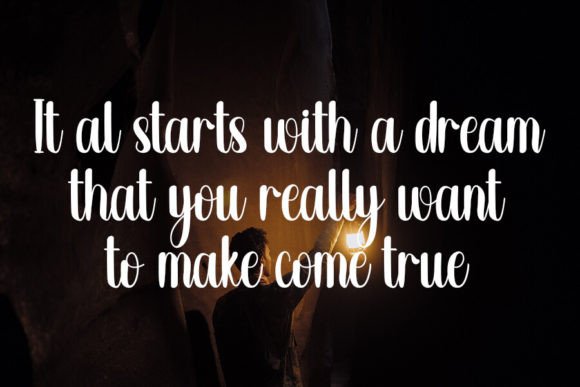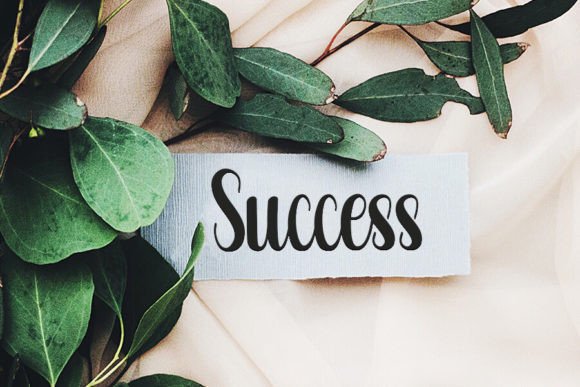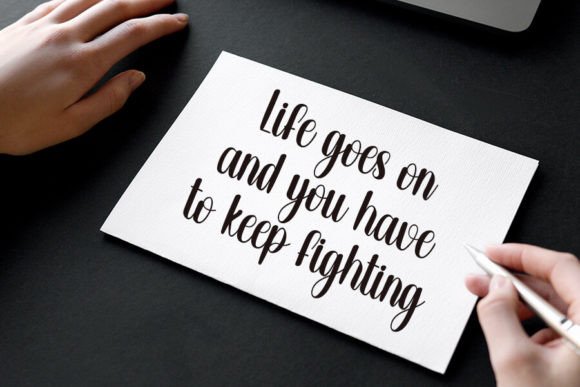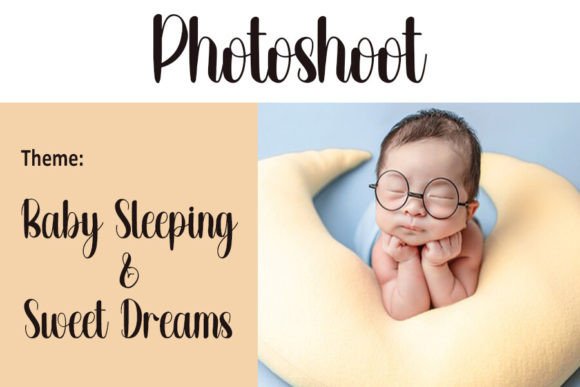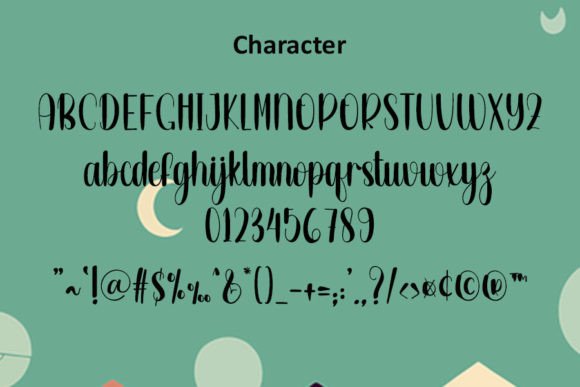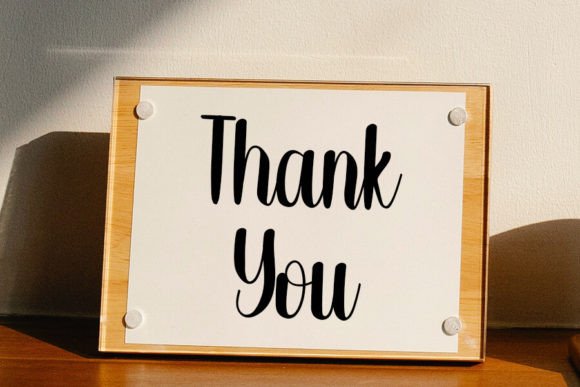
Introducing Good Dreams Font: Elevate Your Designs with Timeless Elegance
In the world of typography, a good font can make all the difference in elevating your designs from ordinary to extraordinary. For designers and crafters seeking a stylish and contemporary handwritten font, Good Dreams Font is an exceptional choice. Inspired by timeless classic calligraphy, Good Dreams boasts a balanced and varied aesthetic that adds an impeccable touch to any project.
The Inspiration Behind Good Dreams Font
Good Dreams Font draws its inspiration from the elegance of classic calligraphy, reimagined with a modern twist. This stylish handwritten font is crafted to bring a sense of sophistication and refinement to your designs, whether you’re working on a branding project, crafting beautiful stationery, or creating engaging digital content.
Key Features of Good Dreams Font
- Contemporary Atmosphere: Good Dreams Font embodies a contemporary atmosphere that feels fresh and current, making it perfect for designers looking for a modern aesthetic.
- Impeccable Form: The font’s design focuses on impeccable form, ensuring that every letter and glyph contributes to a cohesive and beautiful visual experience.
- PUA Encoded: Being PUA (Private Use Area) encoded, Good Dreams Font offers easy access to a wide range of glyphs and ligatures, allowing for extensive creative flexibility.
- Balanced and Varied: The font is carefully crafted to be balanced and varied, providing designers with a versatile tool that can adapt to different design needs.
Enhance Your Projects with Good Dreams Font
Good Dreams Font is designed to enhance the beauty of your projects. Its elegant and contemporary design makes it suitable for a variety of applications, including:
- Branding: Create memorable and impactful brand identities with a font that communicates sophistication and elegance.
- Stationery: Elevate your stationery designs, such as business cards, letterheads, and invitations, with a touch of class and refinement.
- Digital Content: Enhance your digital content, including websites, blogs, and social media graphics, with a stylish and contemporary font that captures attention.
- Crafting and DIY Projects: For crafters and DIY enthusiasts, Good Dreams Font offers endless possibilities for creating beautiful handmade projects, such as custom signs, banners, and personalized gifts.
Why Choose Good Dreams Font?
Choosing Good Dreams Font for your design projects comes with several advantages:
- Unique Aesthetic: The font’s unique blend of classic inspiration and modern design ensures your projects stand out.
- Ease of Use: With PUA encoding, accessing and using the font’s extensive features is straightforward.
- Versatility: Good Dreams Font’s balanced and varied design makes it adaptable to a wide range of projects and design contexts.
- Support for Creativity: The inclusion of numerous glyphs and ligatures supports creative freedom, allowing you to experiment with different styles and effects.
Good Dreams Font is a stylish and versatile handwritten font that brings a touch of timeless elegance to your designs. Its contemporary atmosphere, impeccable form, and extensive features make it an excellent choice for designers and crafters looking to elevate their projects. With Good Dreams Font, you can achieve a sophisticated and refined look that resonates with your audience and sets your designs apart.
Whether you’re a professional designer working on client projects or a crafting enthusiast creating handmade goods, Good Dreams Font is a valuable addition to your creative toolkit. Experience the beauty and versatility of Good Dreams Font and discover new possibilities for your designs.